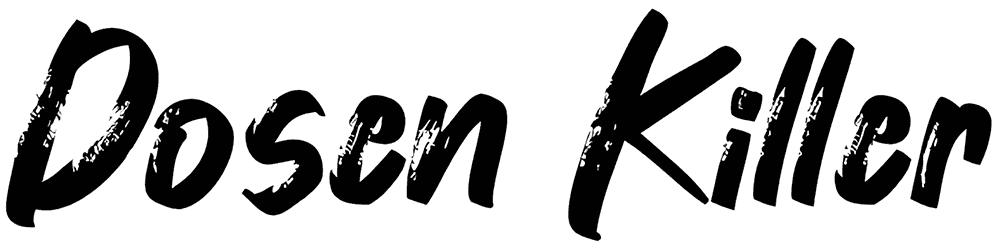
Dosen Killer Font
Dosen Killer font is in the collection of trash and brush fonts. The letters of this blackboard font are skillfully designed, which can be used in many themes and designs of coffee packaging, t-shirts, and even martial a…
Dosen Killer font is in the collection of trash and brush fonts. The letters of this blackboard font are skillfully designed, which can be used in many themes and designs of coffee packaging, t-shirts, and even martial arts classes.
The chalk font is an excellent way to add a hand-drawn look to your graphic designs, making them stand out from the rest when viewed by others.